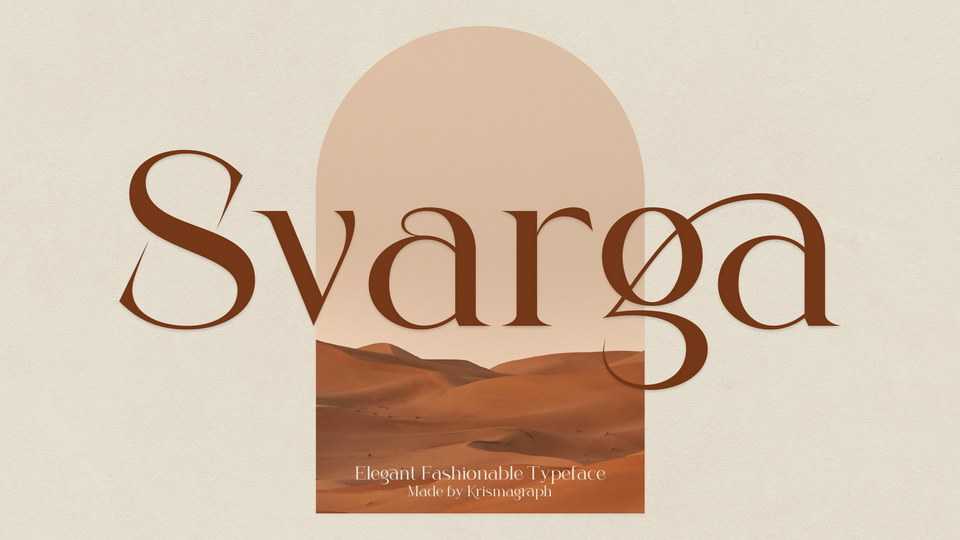
Download Svarga font, a classy and elegant serif typeface. Svarga is both modern and nostalgic and works great for logos, magazine, social media.
Designer: Ratna Krismawati